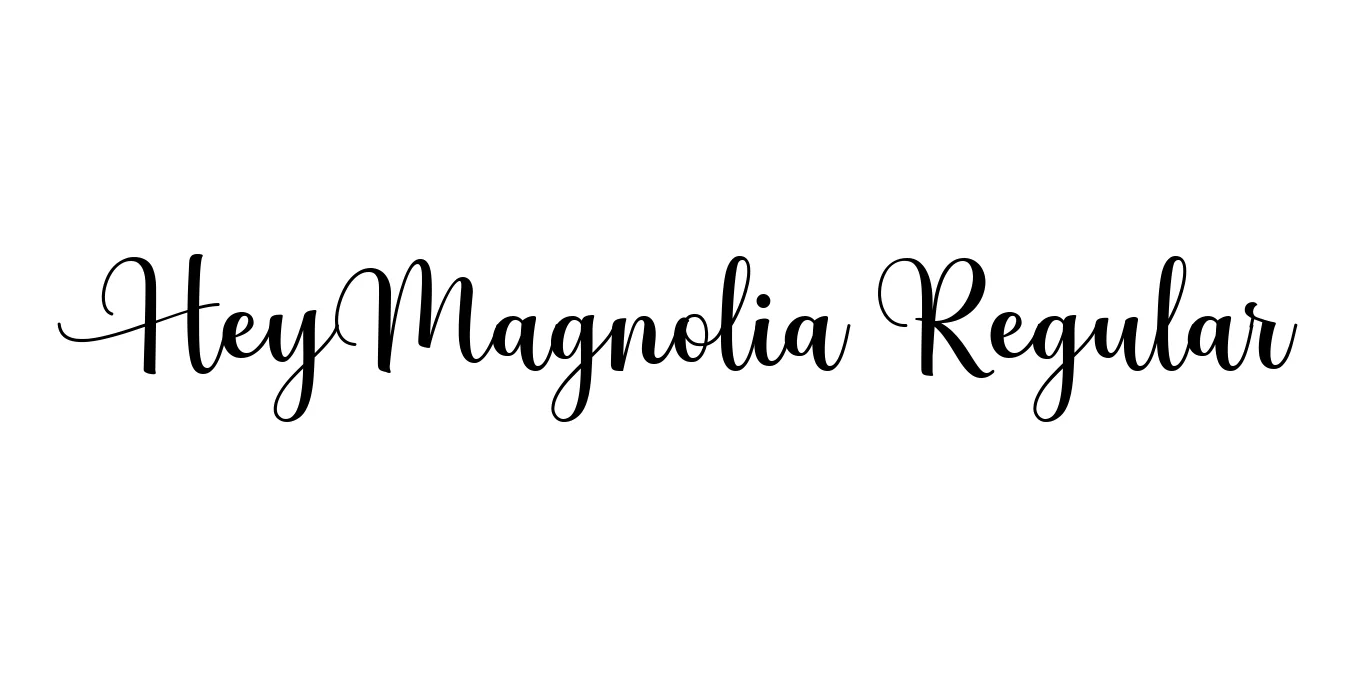
HeyMagnolia Regular
Designed by SilverStag
HeyMagnolia Regular was conceived as a contemporary response to the demand for organic, high-end signature typefaces in the digital lifestyle branding sector. Developed by the SilverStag studio, it seeks to replicate the fluid, uninhibited motion of hand-drawn calligraphy while maintaining the technical rigors required for modern web and print environments. The font's origins are rooted in boutique editorial design, where the need for a personal, humanistic touch is paramount to distinguish brands from the rigidity of traditional sans-serif typography.
Technical analysis reveals a sophisticated approach to stroke modulation and baseline rhythm. HeyMagnolia features a generous x-height for a script face, which significantly enhances legibility at smaller scales. The letterforms are characterized by elongated terminals and varying pressure points that mimic the use of a fine-nibbed fountain pen. Its kerning pairs are meticulously crafted to ensure that the fluid connectors between characters remain seamless, preventing the disjointed appearance often found in lower-quality decorative scripts.
HeyMagnolia Regular Best Uses
Ideal for luxury logos and personal identity projects.
Adds a sophisticated and intimate touch to invitations.
High-impact overlays for lifestyle and fashion photography.
Excellent for pull quotes and decorative headers in magazines.